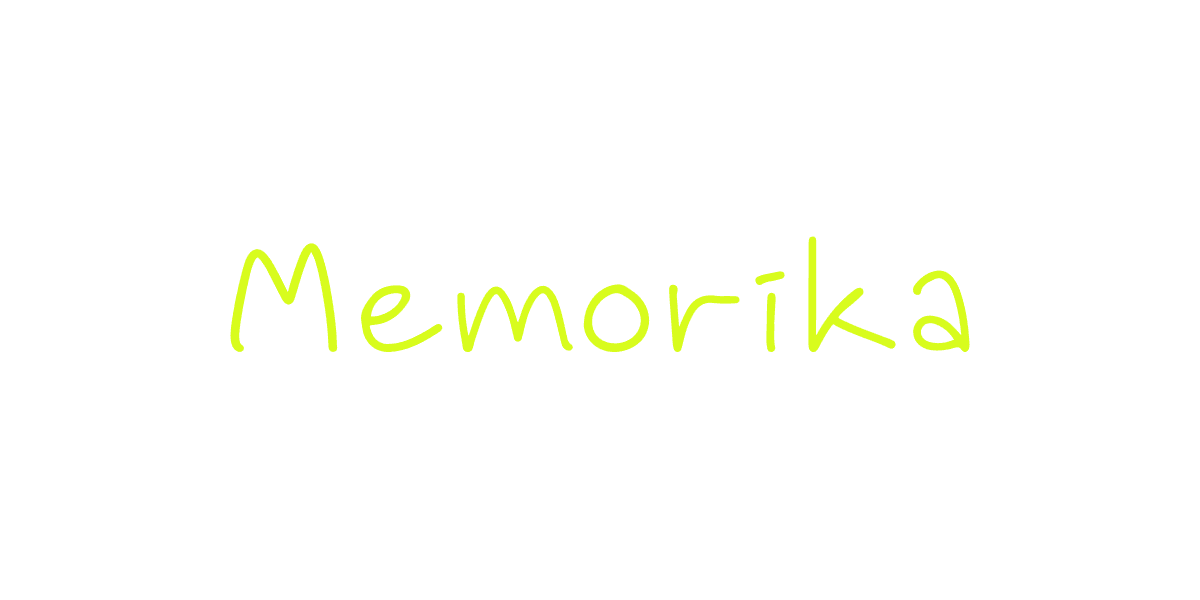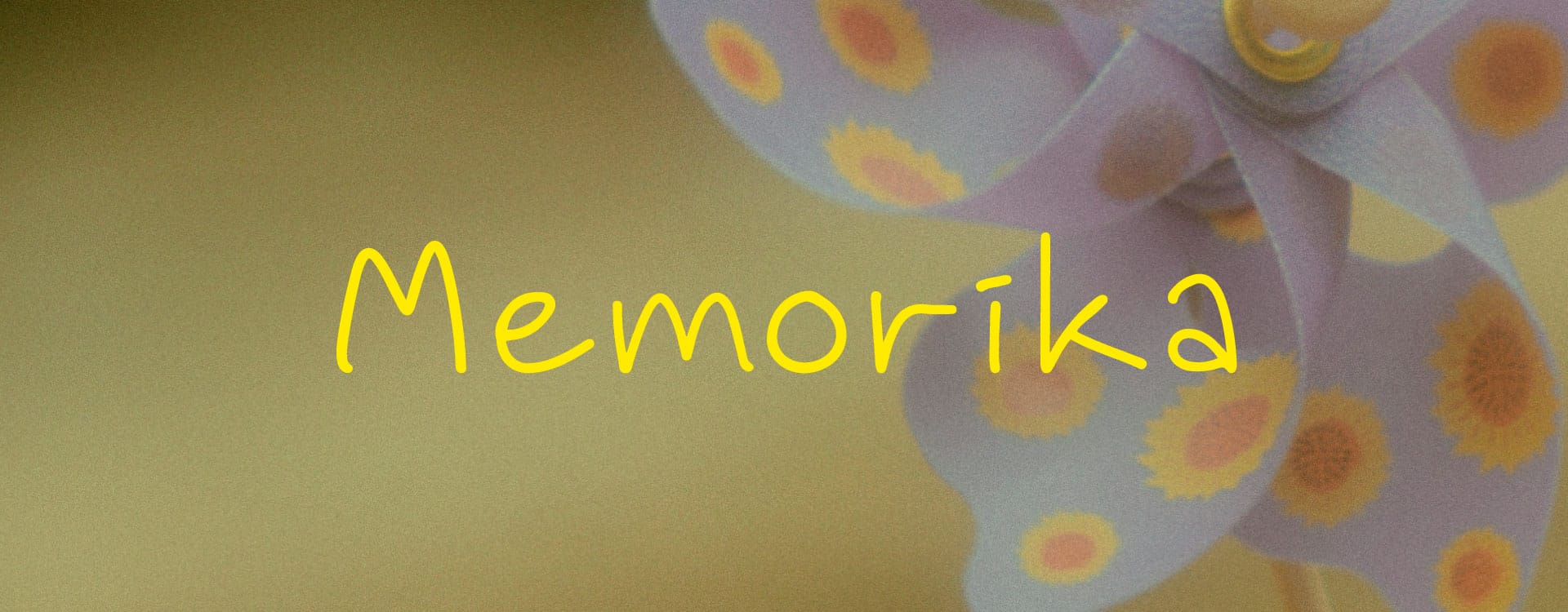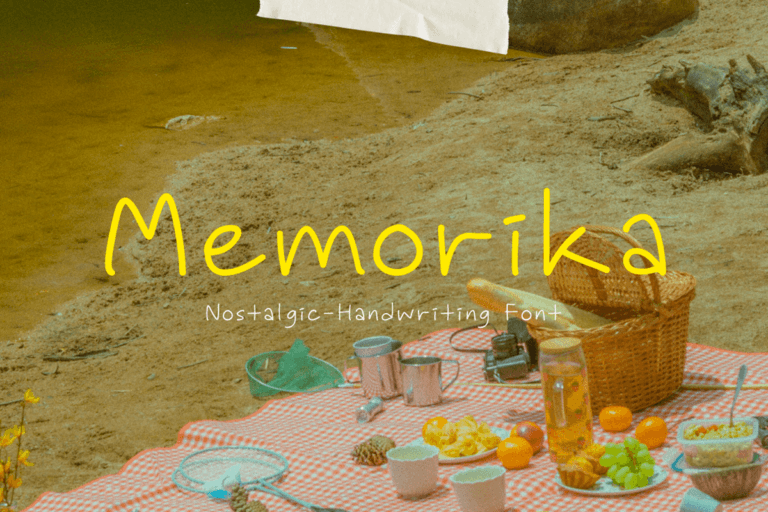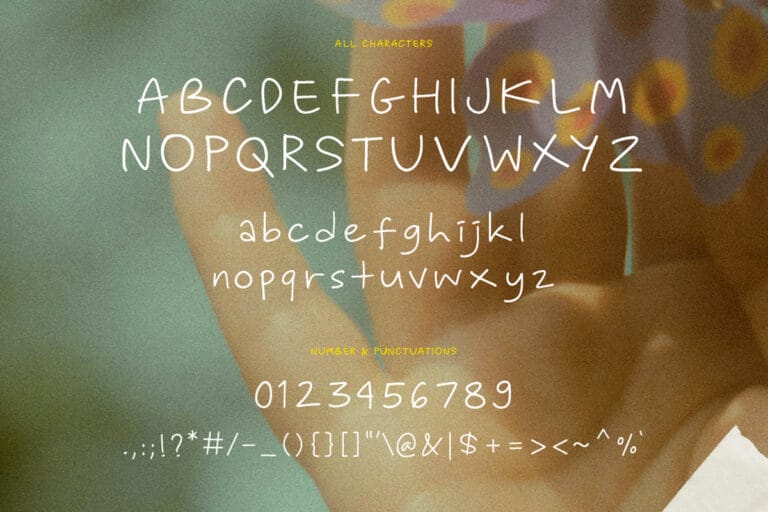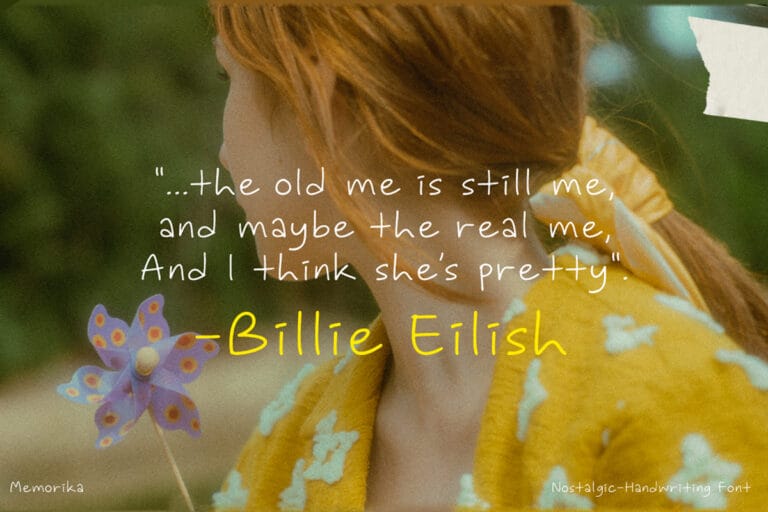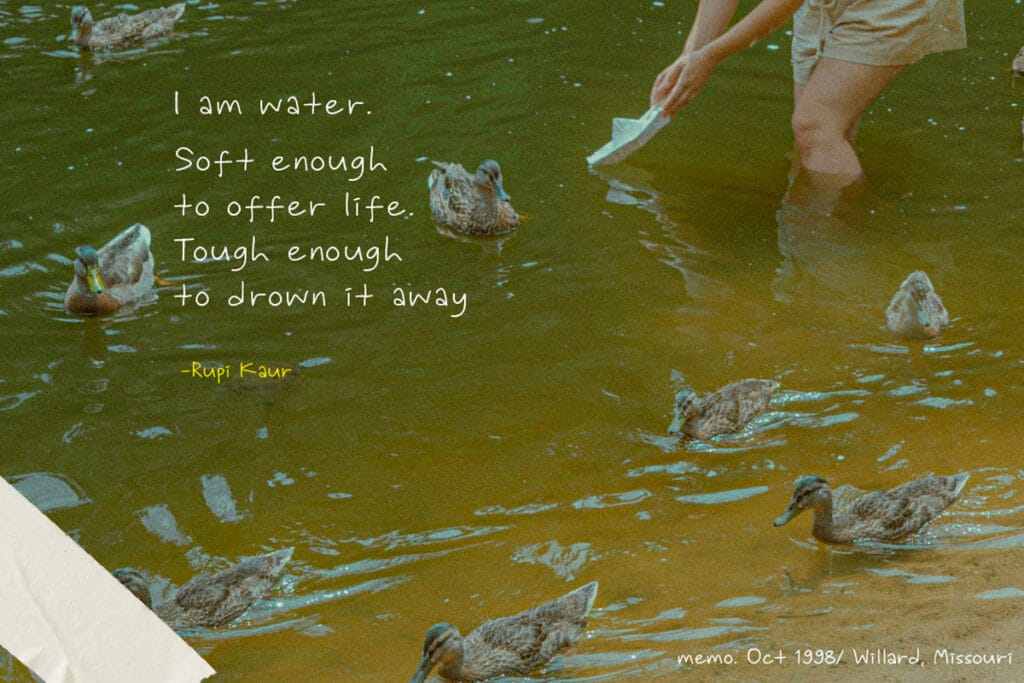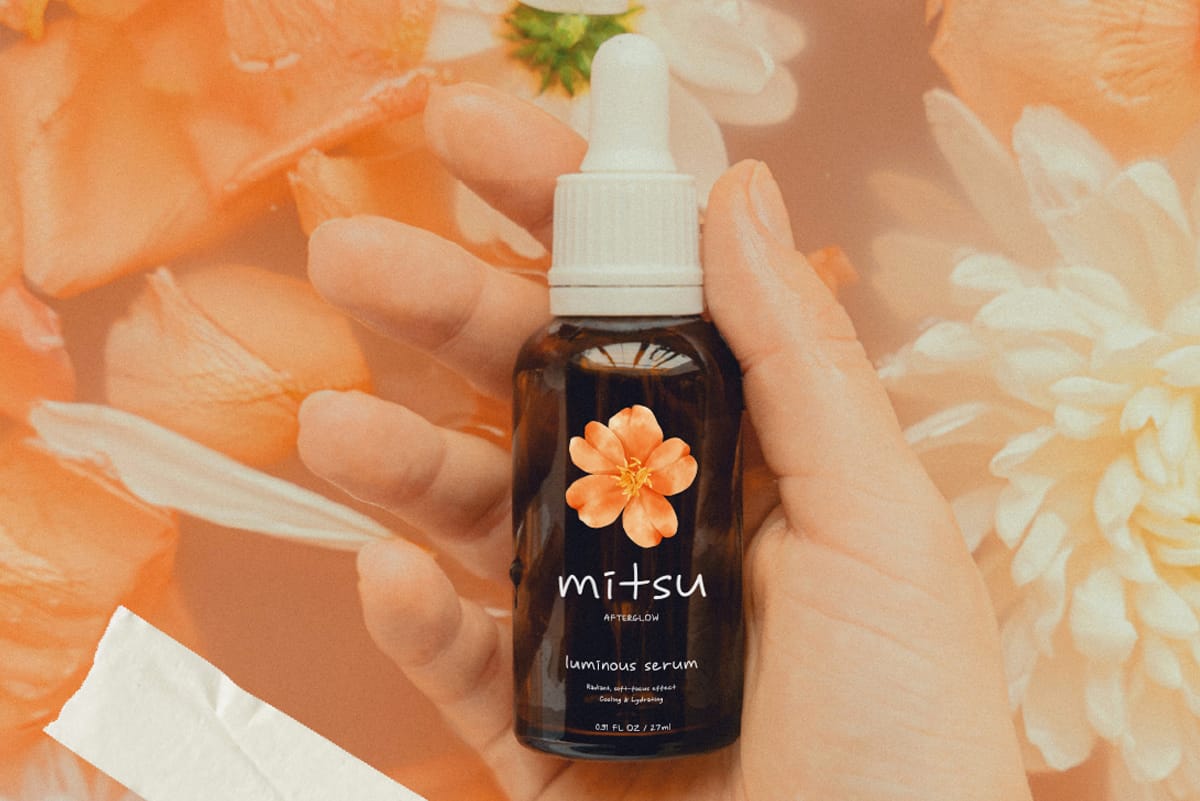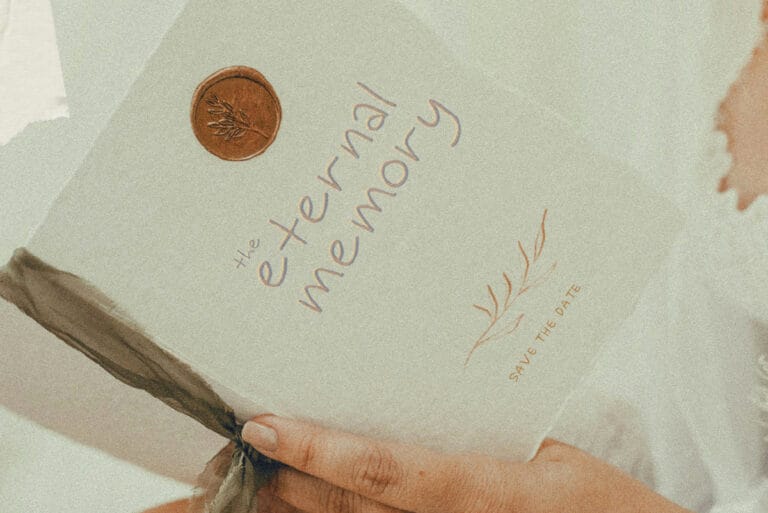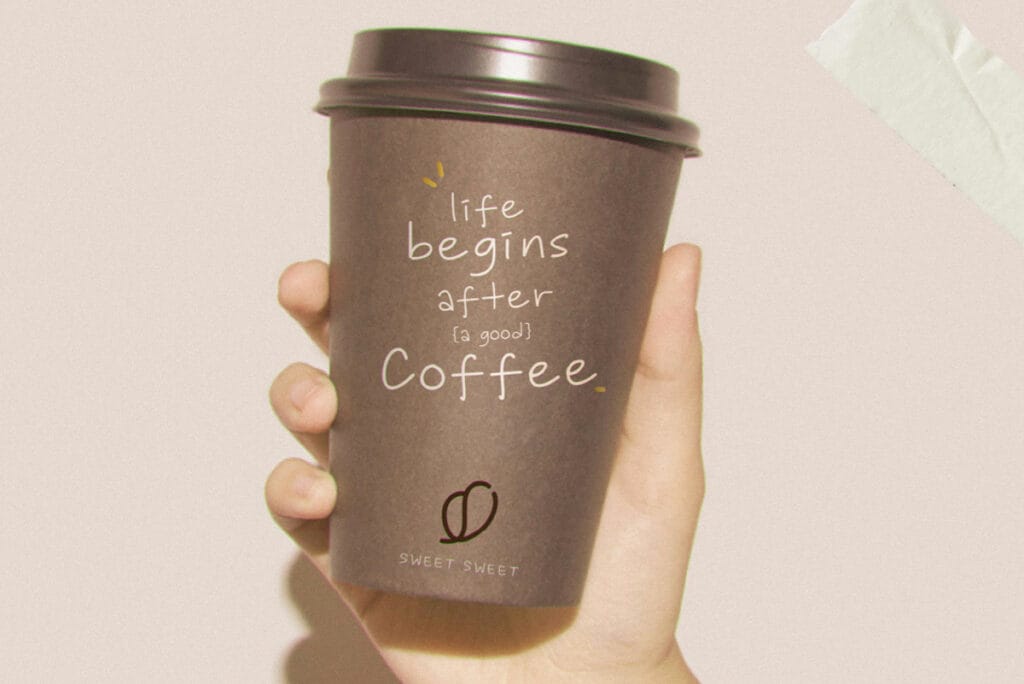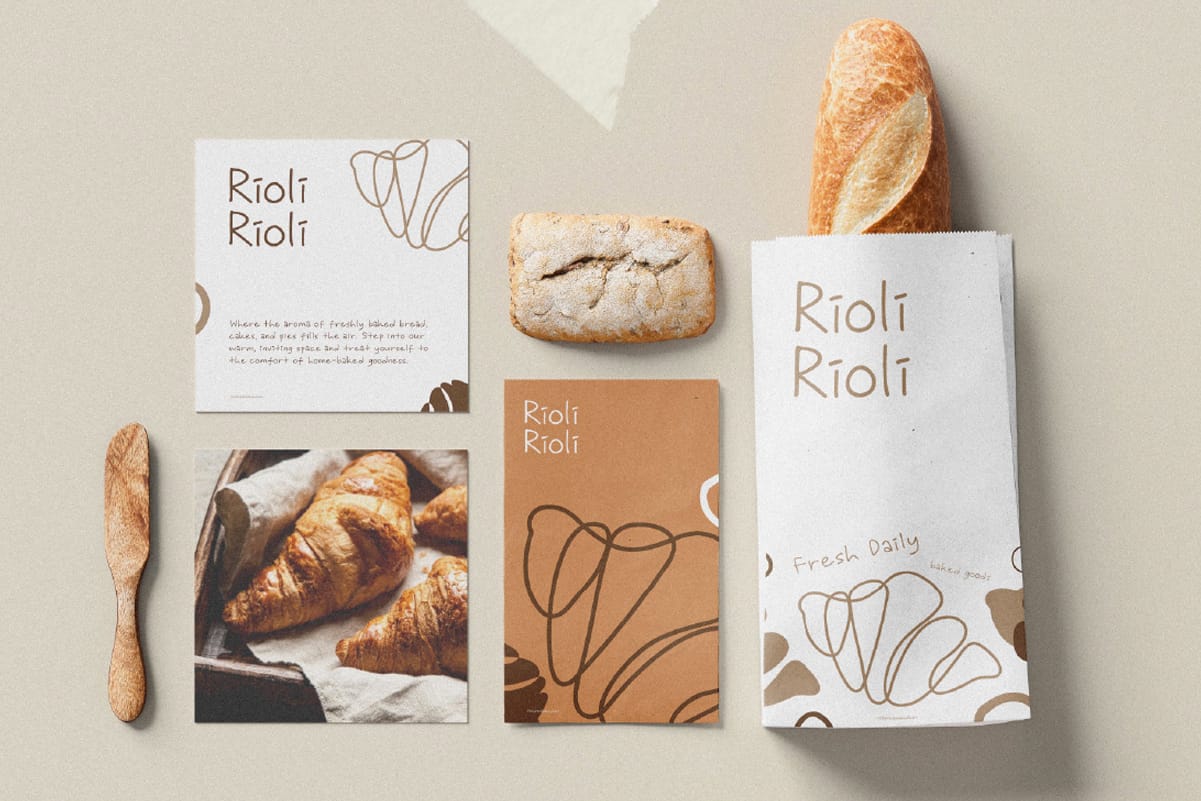
Introducing Memorika, a free-flowing handwritten font that captures the natural and casual feel of jotting down memories with a pen. Memorika includes a full set of uppercase and lowercase characters, numbers, and punctuation.
With its versatile look, Memorika works beautifully as a feature font or as a complement to other typefaces, adding a touch of personality to any project.